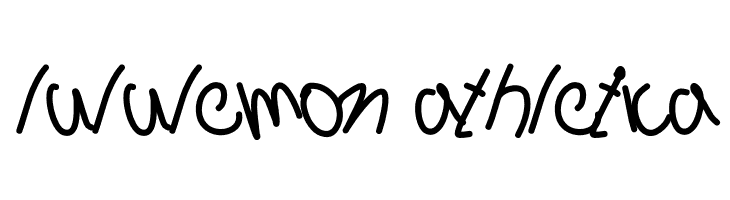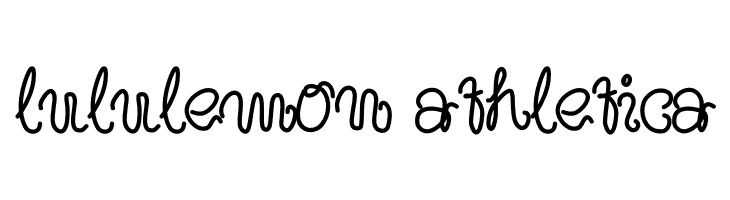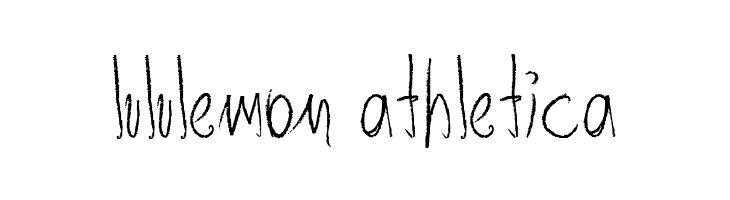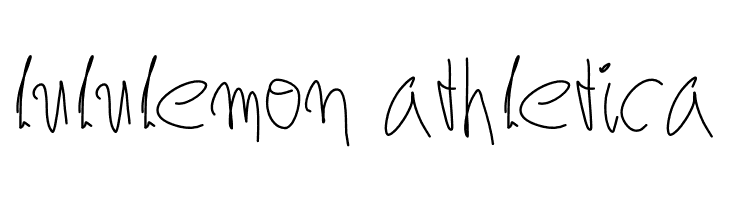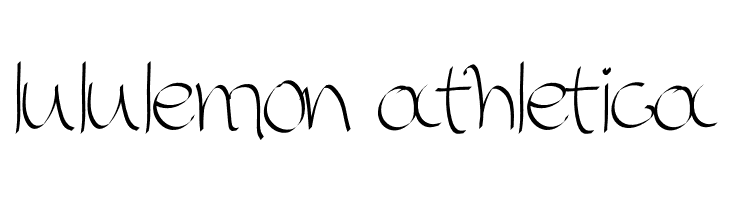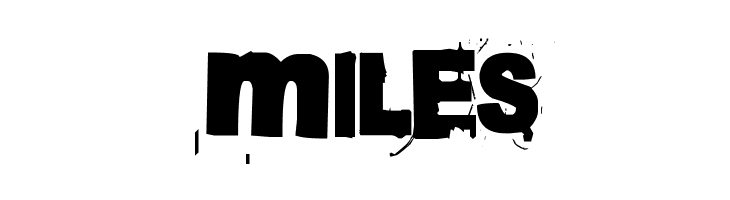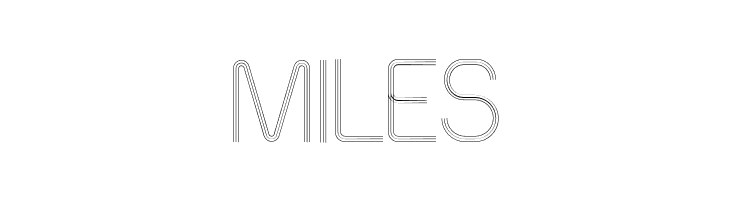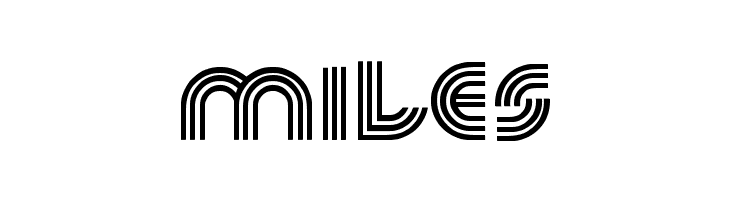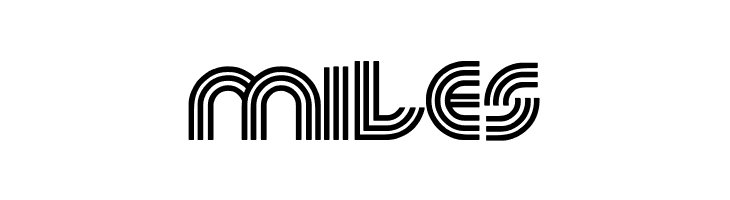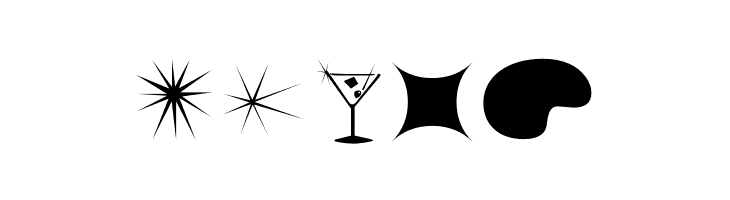
( Fonts by www.aka-acid.com ) A playful, whimsical handwritten font with tall, slender letters and quirky curves. Descarcă 201 Descărcări@WebFont
( Fonts by www.aka-acid.com ) A playful, handwritten font with fluid strokes and a casual style. Descarcă 282 Descărcări@WebFont
( Fonts by www.aka-acid.com ) A hand-drawn, grungy font with tall, narrow characters and irregular strokes. Descarcă 224 Descărcări@WebFont
( Fonts by www.aka-acid.com ) A playful, handwritten font with a casual, whimsical style. Descarcă 290 Descărcări@WebFont
( Fonts by www.aka-acid.com ) A playful, handwritten font with a casual and spontaneous style. Descarcă 188 Descărcări@WebFont
( Fonts by www.aka-acid.com ) An elegant and whimsical script font with flowing, interconnected letters and playful loops. Descarcă 193 Descărcări@WebFont
( Fonts by www.aka-acid.com ) A dynamic, hand-drawn font with sharp, angular strokes and a graffiti-like style. Descarcă 174 Descărcări@WebFont
( Fonts by www.aka-acid.com ) A bold, geometric font with a digital, pixelated style. Descarcă 169 Descărcări@WebFont
( Fonts by www.aka-acid.com ) A playful, casual handwritten font with smooth, flowing lines. Descarcă 206 Descărcări@WebFont
( Fonts by www.aka-acid.com ) A playful, hand-drawn font with thin, whimsical strokes. Descarcă 139 Descărcări@WebFont
( Fonts by www.aka-acid.com ) A playful, energetic handwritten font with irregular strokes and a casual style. Descarcă 295 Descărcări@WebFont
( Fonts by www.aka-acid.com ) A playful, informal handwritten font with smooth, flowing lines. Descarcă 610 Descărcări@WebFont
( Fonts by www.aka-acid.com ) An artistic, calligraphic font with flowing, dynamic strokes. Descarcă 130 Descărcări@WebFont
( Fonts by www.aka-acid.com ) A bold, playful script font with a handwritten style. Descarcă 319 Descărcări@WebFont
( Fonts by www.aka-acid.com ) A bold, expressive handwritten font with dynamic strokes and playful character. Descarcă 134 Descărcări@WebFont
( Fonts by www.aka-acid.com ) A bold, playful handwritten font with a lively and informal style. Descarcă 525 Descărcări@WebFont
( Fonts by www.aka-acid.com ) A whimsical, monster-themed font with playful, hand-drawn characters. Descarcă 336 Descărcări@WebFont
( Fonts by www.aka-acid.com ) A geometric, maze-like font with a digital, retro aesthetic. Descarcă 171 Descărcări@WebFont
( Fonts by www.aka-acid.com ) A pixelated, retro-style font with a blocky, geometric appearance. Descarcă 177 Descărcări@WebFont
( Fonts by www.aka-acid.com ) A playful, handwritten font with a casual and dynamic style. Descarcă 248 Descărcări@WebFont
( Fonts by www.aka-acid.com ) A bold, geometric font with a digital, futuristic style. Descarcă 788 Descărcări@WebFont
( Fonts by www.aka-acid.com ) An ornate script font with elaborate swirls and flourishes. Descarcă 1242 Descărcări@WebFont
( Fonts by www.aka-acid.com ) A futuristic, geometric font with a digital aesthetic. Descarcă 240 Descărcări@WebFont
( Fonts by www.aka-acid.com ) A playful, curly font with interconnected loops and swirls. Descarcă 273 Descărcări@WebFont
( Fonts by www.aka-acid.com ) A playful, casual handwritten font with irregular strokes and low contrast. Descarcă 8346 Descărcări@WebFont
( Fonts by www.aka-acid.com ) A sketch-like, hand-drawn font with textured, artistic strokes. Descarcă 1046 Descărcări@WebFont
( Fonts by www.aka-acid.com ) A modern, calligraphic font with fluid strokes and artistic flair. Descarcă 242 Descărcări@WebFont
( Fonts by www.aka-acid.com ) A playful, informal handwritten font with rounded, consistent strokes. Descarcă 1594 Descărcări@WebFont
( Fonts by www.aka-acid.com ) A playful, dynamic handwritten font with bold, fluid strokes. Descarcă 128 Descărcări@WebFont
( Fonts by www.aka-acid.com ) A playful, handwritten font with rounded, whimsical characters. Descarcă 338 Descărcări@WebFont
( Fonts by www.aka-acid.com ) A playful, handwritten font with a casual and friendly style. Descarcă 583 Descărcări@WebFont
( Fonts by www.aka-acid.com ) A scratchy, hand-drawn font with an energetic and edgy style. Descarcă 280 Descărcări@WebFont
( Fonts by www.aka-acid.com ) A playful, hand-drawn script font with a condensed and bold style. Descarcă 175 Descărcări@WebFont
( Fonts by www.aka-acid.com ) A playful, hand-drawn serif font with bold, rounded serifs and irregular strokes. Descarcă 550 Descărcări@WebFont
( Fonts by www.aka-acid.com ) A delicate, thin script font with elegant, flowing lines. Descarcă 260 Descărcări@WebFont